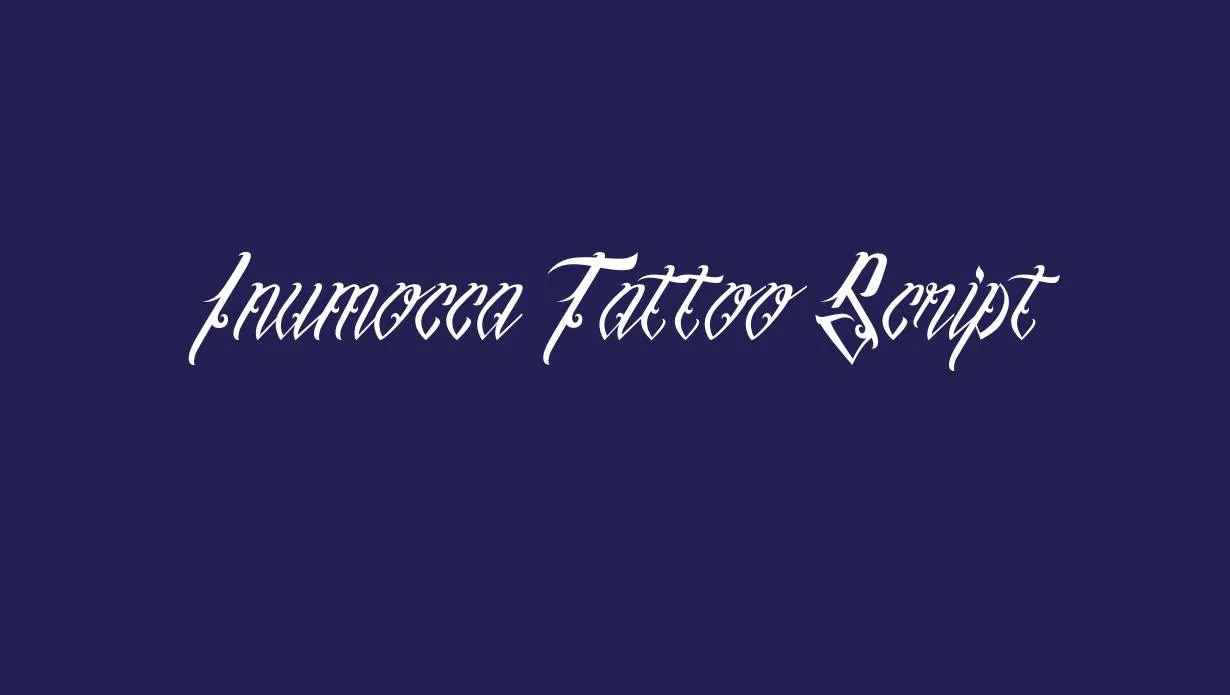
Inumocca Tattoo Script Font is a decorative and expressive typeface known for its intricate design. It’s frequently used in tattoo designs, vintage branding, and projects that seek to convey a sense of artistry and individuality.
The font’s detailed and artistic letterforms add an element of creativity and personal expression to your design work.
| Name | Inumocca Tattoo Script Font |
| Designer | inumocca |